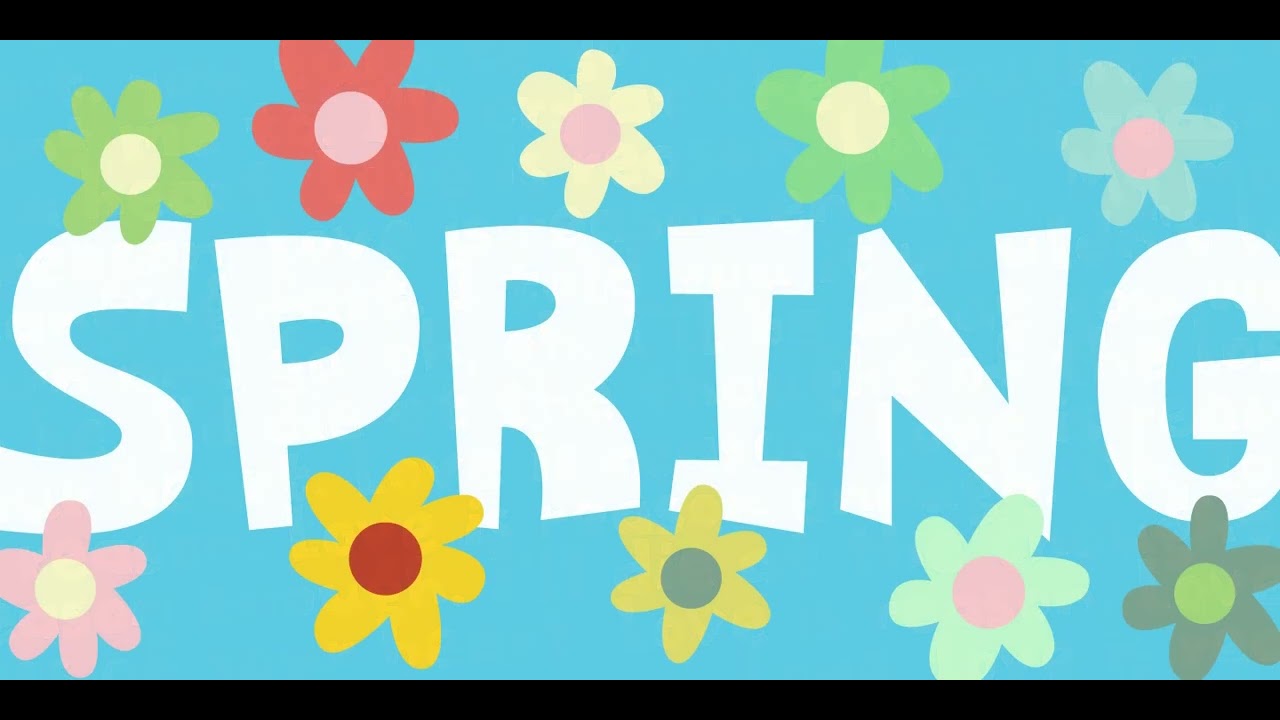
Empty Fridge Font By Pizzadude Fontriver Please note that this is a demo version of the font! the full version comes with kerning and more international characters often with both ligatures, contextual alternates and other yummy stuff!. Download free empty fridge font, view its character map and generate text based images or logos with empty fridge font online.
Empty Fridge Font By Pizzadude Fontriver Empty fridge is my crazy, wacky and totally unpredictable comic font. forget about typographic rules, but play along with the goofiness in each and every letter!thank you for downloading my font! please note that this is a demo version of the font!. Empty fridge font download is available free from fontget. empty fridge is a fancy type font that can be used on any device such as pc, mac, linux, ios and android. Empty fridge font is my crazy, wacky and totally unpredictable comic font. forget about typographic rules, but play along with the goofiness in each and every letter!. Discover & download empty fridge regular otf (400) font. a playful, bold, and hand drawn style font. with ️ whatfontis.
Empty Fridge Font By Pizzadude Fontriver Empty fridge font is my crazy, wacky and totally unpredictable comic font. forget about typographic rules, but play along with the goofiness in each and every letter!. Discover & download empty fridge regular otf (400) font. a playful, bold, and hand drawn style font. with ️ whatfontis. Empty fridge font by pizzadude is a free playful font with funky and casual characteristics. it has a youthful and dynamic appearance with its rounded characters and uneven letters. The empty fridge demo regular font includes 88 carefully crafted characters. preview your text instantly on ffonts to see if it fits your design. Get the empty fridge demo regular font free! a playful, bold font perfect for logos, headlines, and quirky designs. download now and unleash your inner artist!. Please note that this is a demo version of the font! the full version comes with kerning and more international characters often with both ligatures, contextual alternates and other yummy stuff!.
Empty Fridge Demo Font Free Font Download Empty fridge font by pizzadude is a free playful font with funky and casual characteristics. it has a youthful and dynamic appearance with its rounded characters and uneven letters. The empty fridge demo regular font includes 88 carefully crafted characters. preview your text instantly on ffonts to see if it fits your design. Get the empty fridge demo regular font free! a playful, bold font perfect for logos, headlines, and quirky designs. download now and unleash your inner artist!. Please note that this is a demo version of the font! the full version comes with kerning and more international characters often with both ligatures, contextual alternates and other yummy stuff!.
Empty Fridge Font Dafont Get the empty fridge demo regular font free! a playful, bold font perfect for logos, headlines, and quirky designs. download now and unleash your inner artist!. Please note that this is a demo version of the font! the full version comes with kerning and more international characters often with both ligatures, contextual alternates and other yummy stuff!.